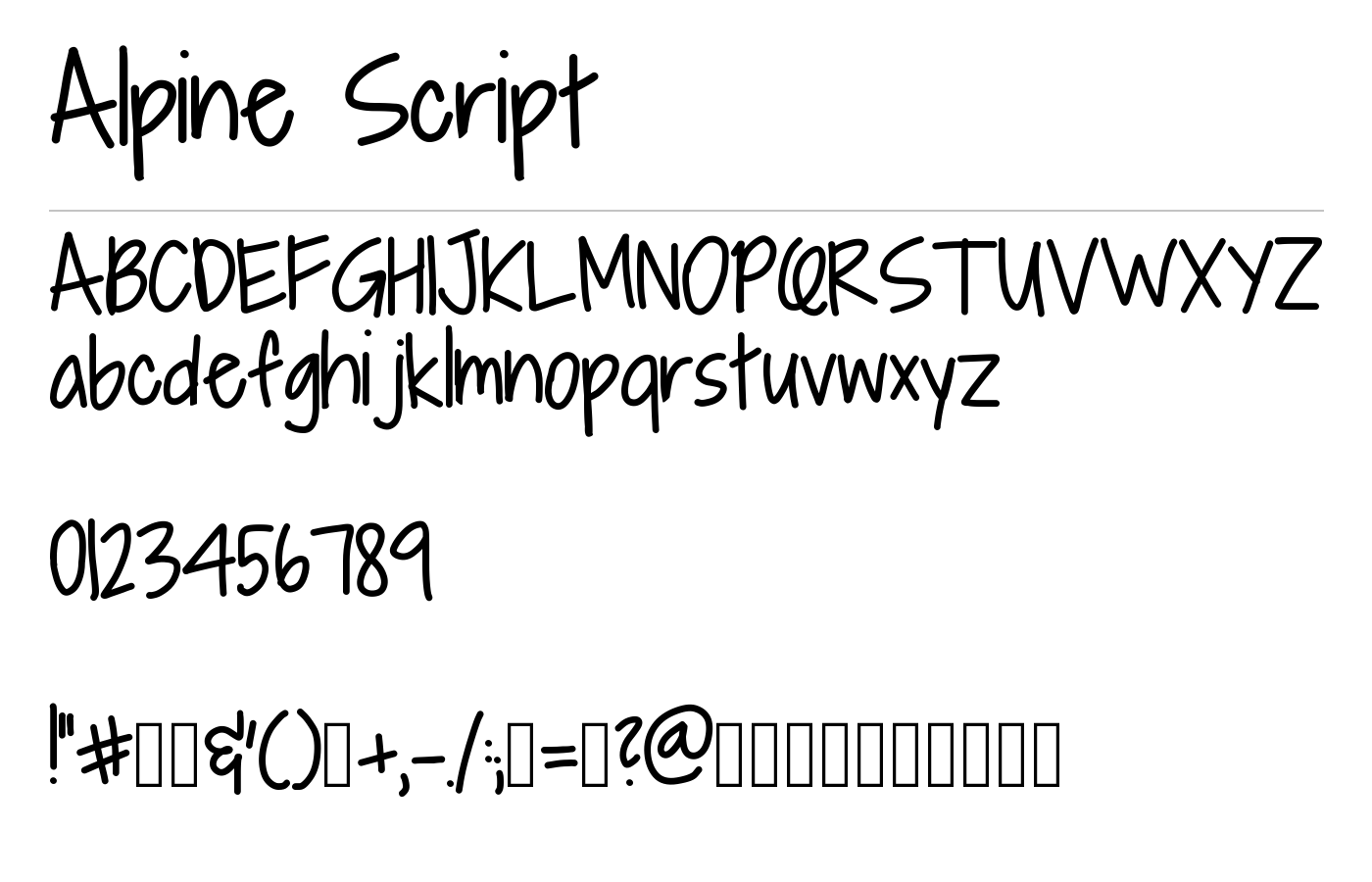
Alpine Script is a playful, casual handwritten font with a clean and friendly appearance. Its tall, narrow letterforms and consistent stroke weight give it an approachable, modern feel, making it ideal for informal branding, children's materials, and creative projects where a natural, personal touch is desired. This font works well in headlines and short texts, adding charm without sacrificing readability.
Alpine Script Font
About Alpine Script Font